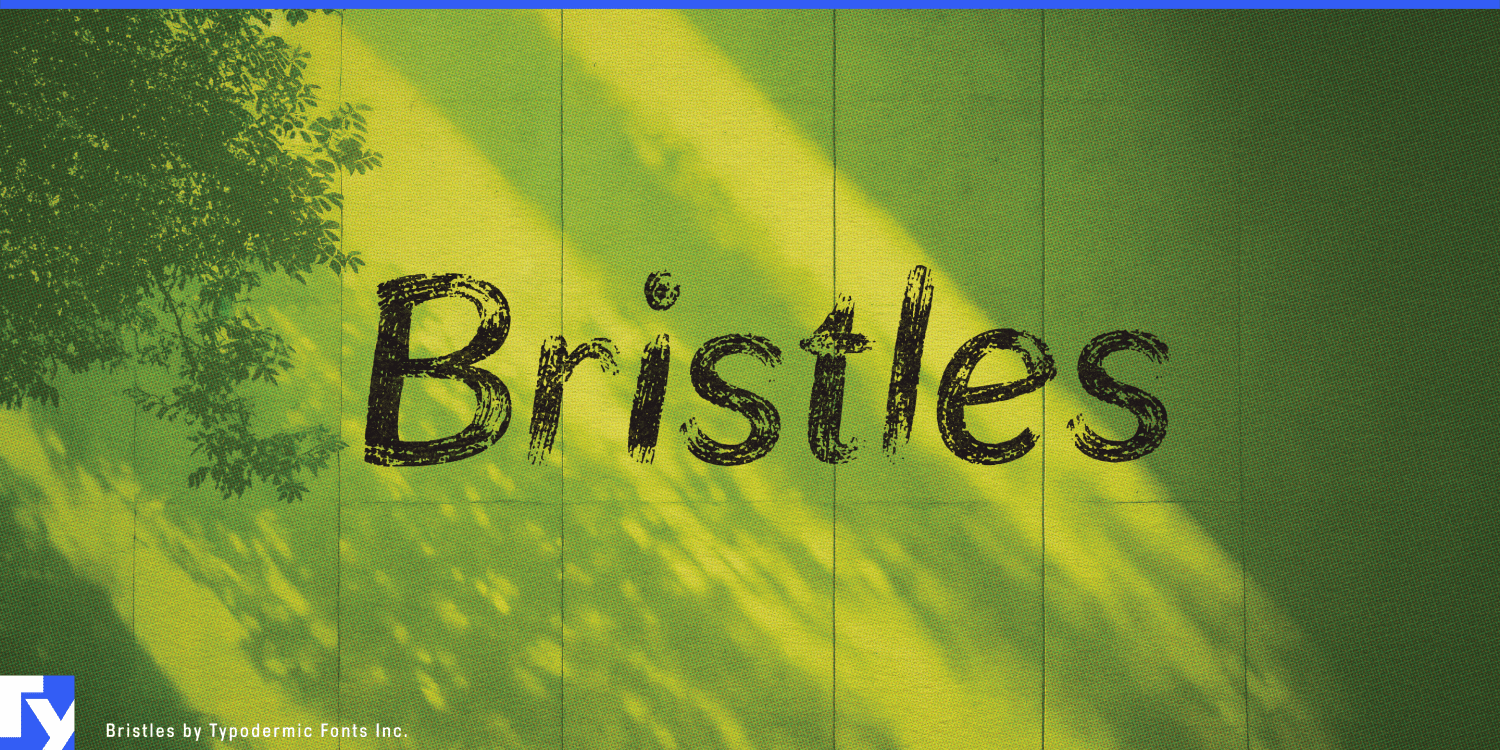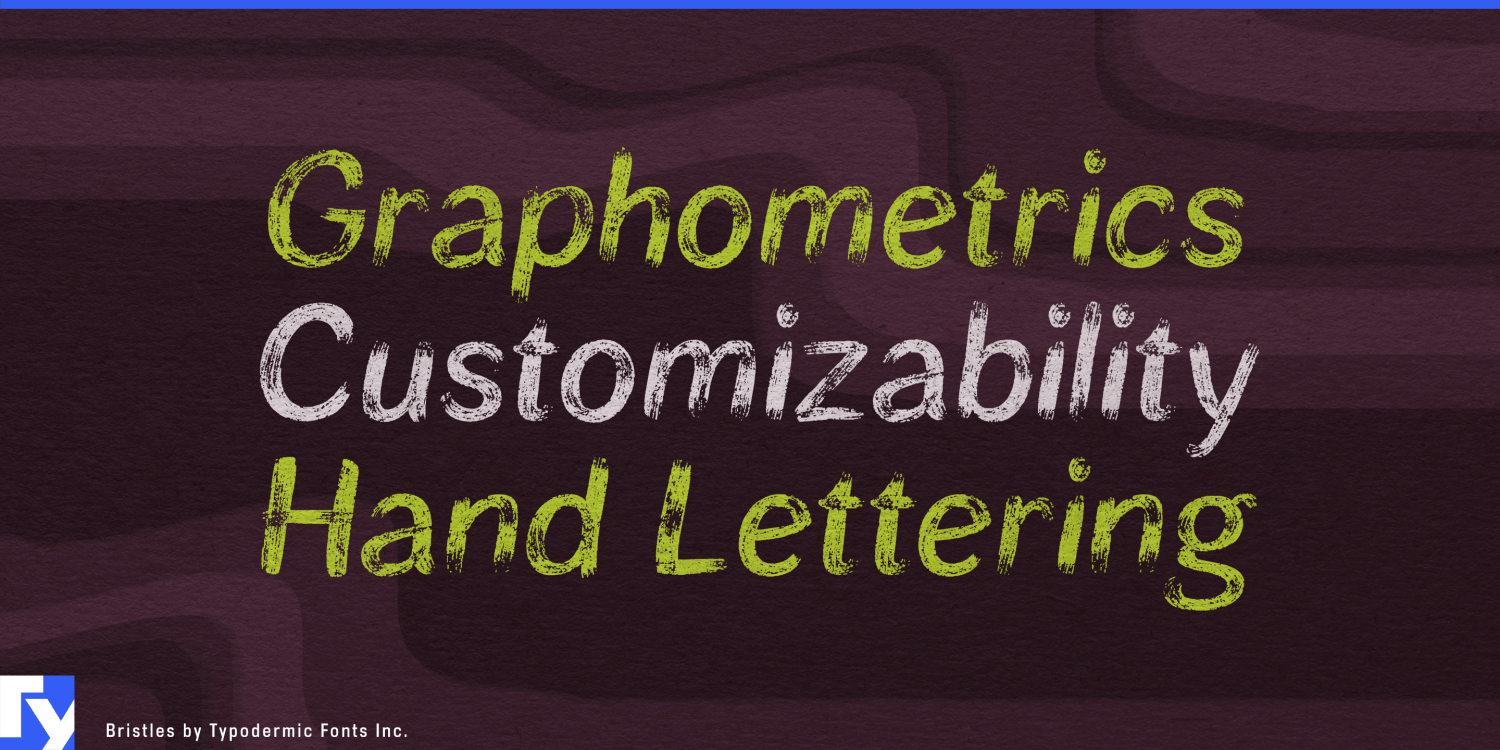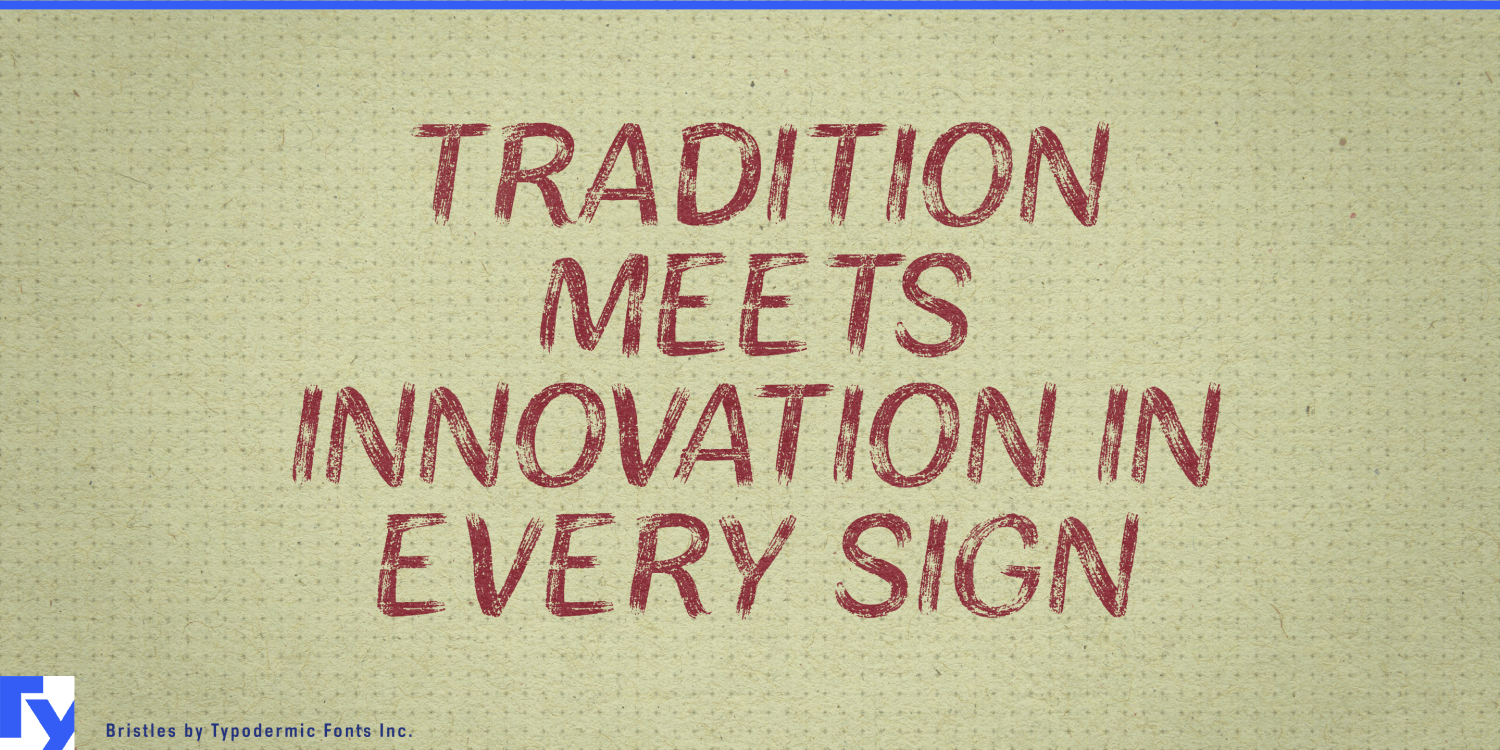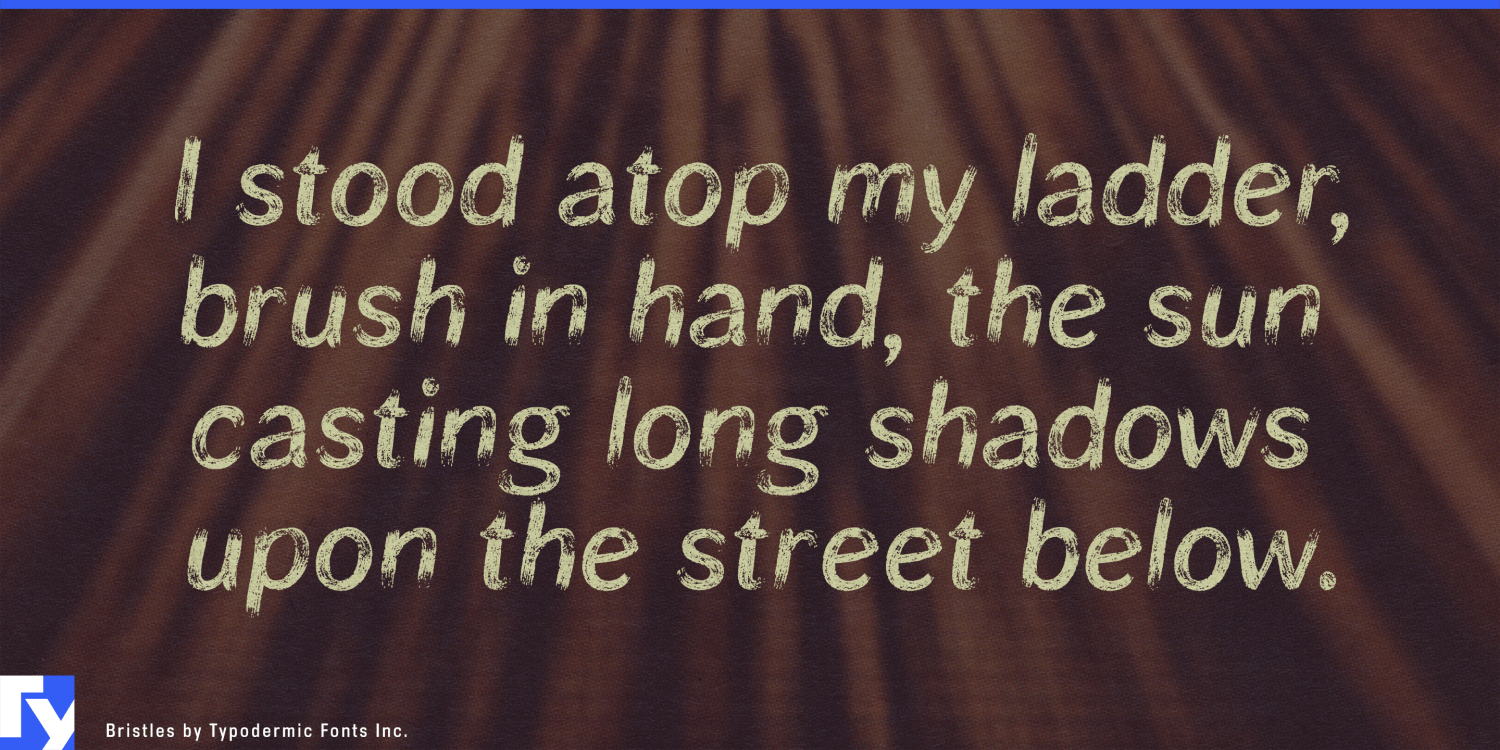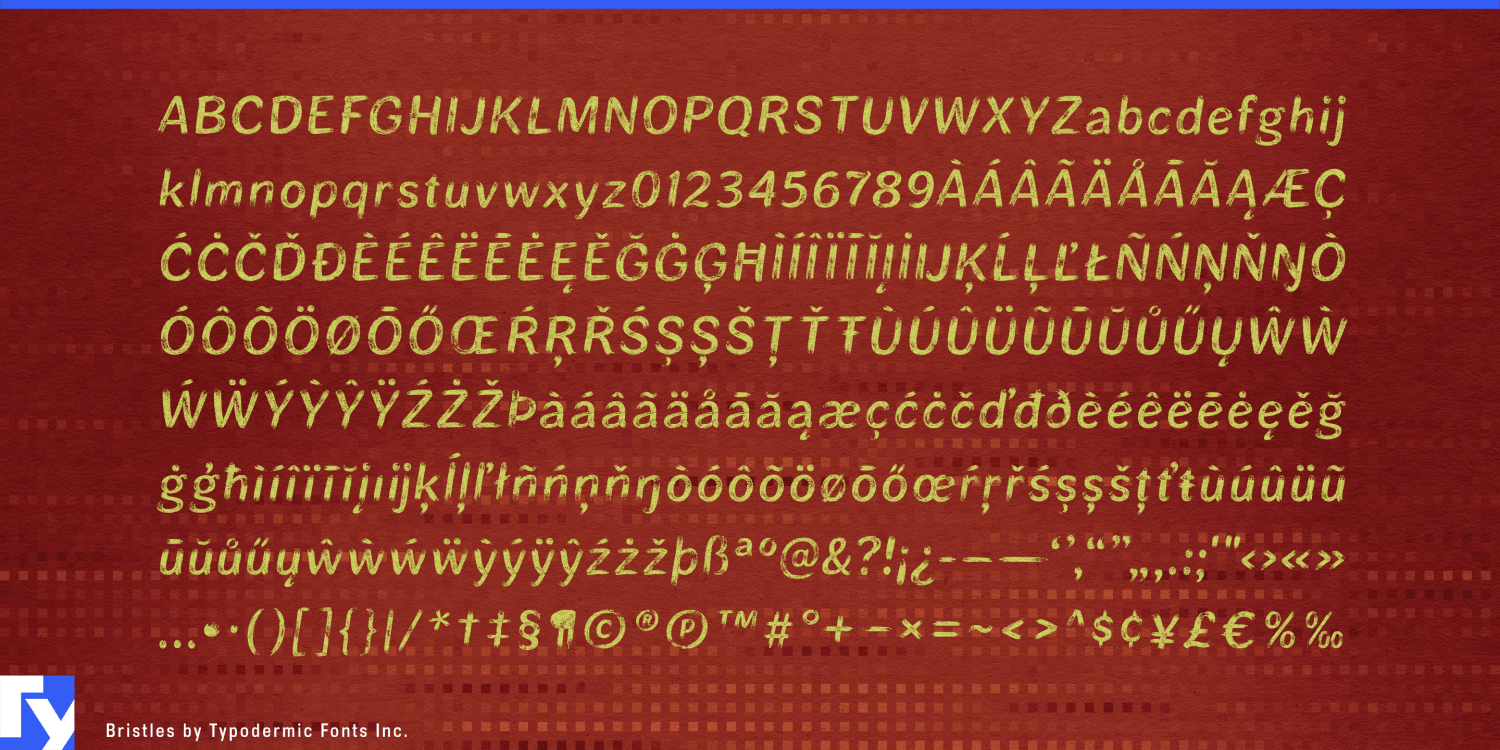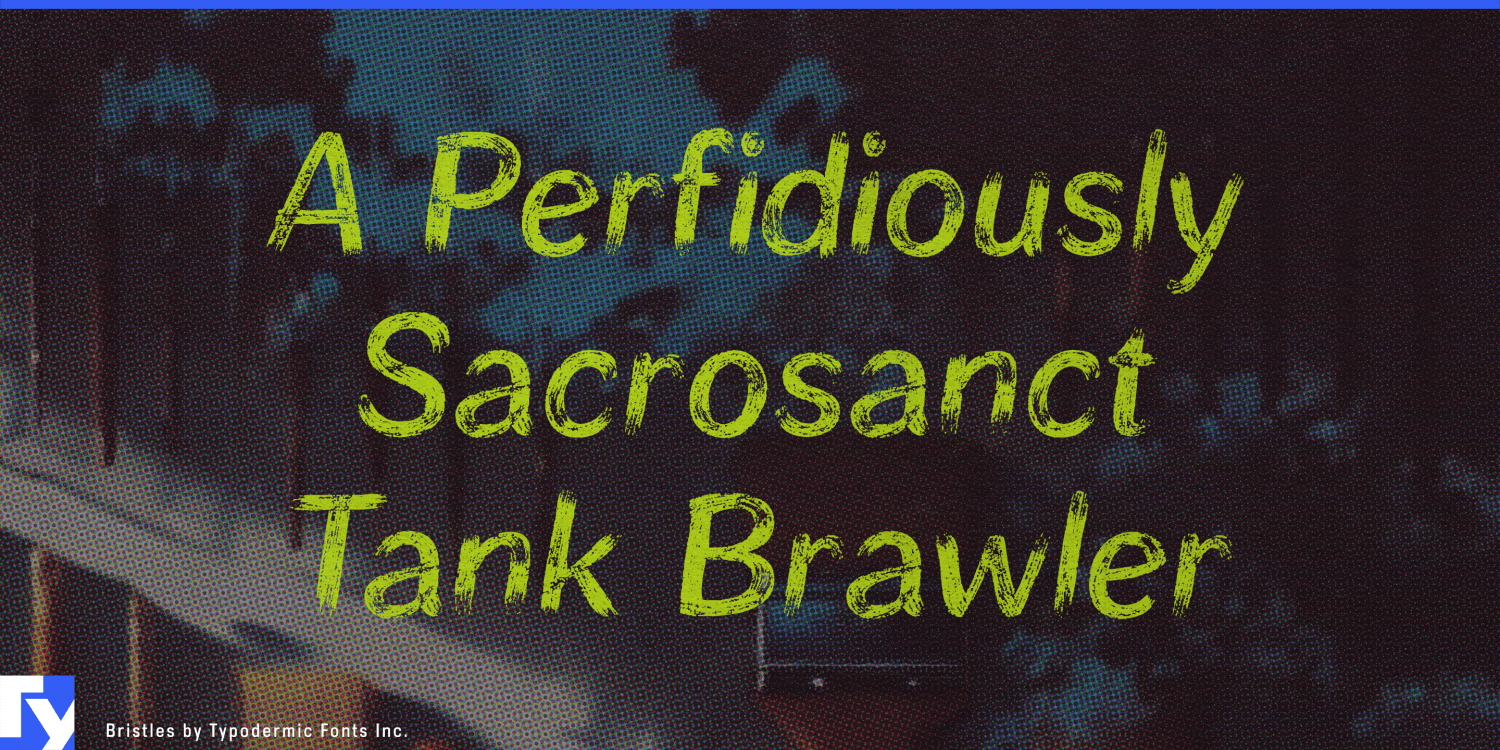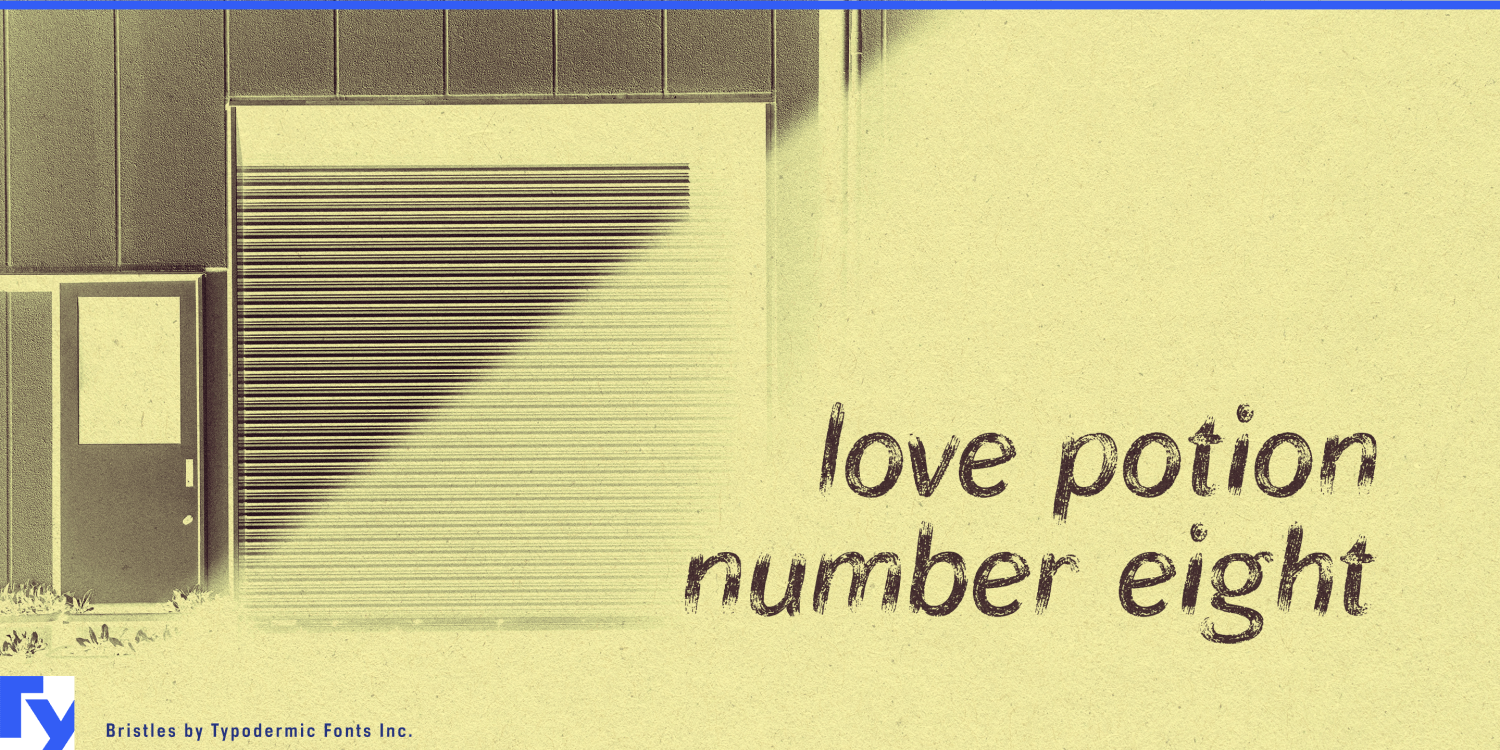
Bristles
Font Family by Typodermic
New typography can look conspicuously new when everything around it has already been weathering for decades. A restored warehouse, motor lodge, workshop, marina, or railway building may have brick, timber, painted steel, faded signs, and patched surfaces; a crisp digital headline dropped into that environment can feel pasted on. Bristles solves that problem with lettering that looks like painted signage gradually losing its grip on the surface rather than a generic grunge effect.
That makes Bristles particularly useful for adaptive-reuse hospitality. Converted factories, warehouses, dock buildings, railway properties, old schools, and industrial structures turned into hotels, restaurants, markets, and event spaces often need graphics that feel native to the building. Restaurant names, bar identities, room names, wall lettering, event-series titles, merchandise, temporary signs, and campaign headlines can inherit some of the physical history already present in the space.
Roadside and outdoor hospitality provide another strong setting. Renovated motels, cabin resorts, campground properties, marinas, lakeside lodges, surf hotels, ski lodges, and park-adjacent destinations can use Bristles for entrance graphics, cabin names, rental-shop signs, seasonal programs, merchandise, restaurant identities, and promotional headings. Its weathering suggests sun, repainting, abrasion, and exposure rather than theatrical destruction.
Bristles also fits businesses built around restoration. Classic-car specialists, restomod builders, heritage motorcycle shops, vintage 4×4 companies, boat restorers, historic racing events, and workshops dealing with older machinery can use it for build-series names, garage walls, vehicle graphics, event titles, parts packaging, apparel, and documentary material.
Heritage workwear and rugged goods can use the same visual language selectively. Denim and canvas collections, field jackets, boots, motorcycle luggage, tool rolls, and outdoor equipment can carry Bristles on hangtags, patches, packaging bands, retail displays, collection names, and campaign graphics.
Film, television, games, and experiential production have an even more practical reason to use it. Period street sets, roadside locations, industrial environments, historical games, and themed attractions may need dozens of fictional shop names, garage signs, warning notices, wall markings, and environmental graphics that all appear naturally aged. Bristles can generate changing text inside that weathered world without requiring every new line to be distressed by hand.
Bristles began with softened sans-serif letterforms, then received a separate weathering process built from painted marks, layered damage, and simulated film grain. Pair substitutions introduce variation where repeated combinations might otherwise reveal the digital mechanism too quickly. The underlying forms remain comparatively calm, so the decay reads as paint loss and exposure rather than aggressive destruction.